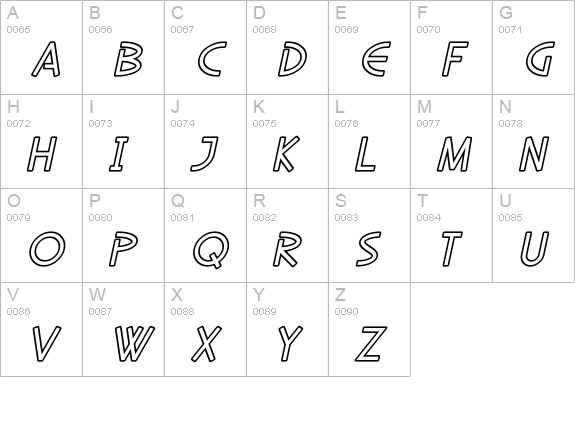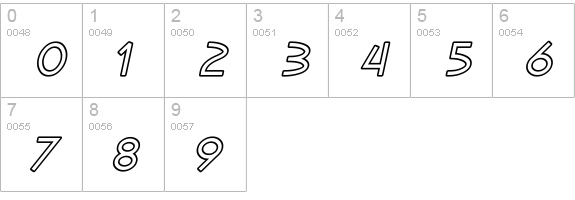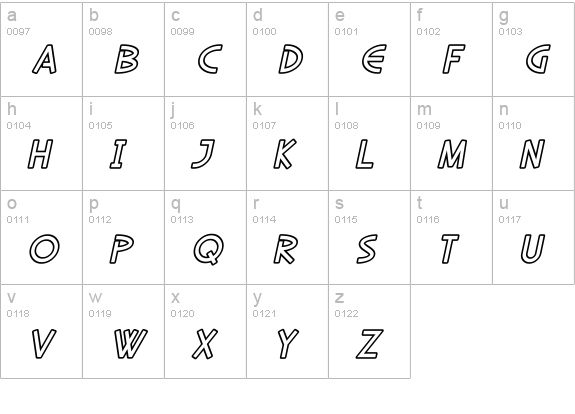
SF Diego Sans Outline Oblique Font Details
SF Diego Sans Outline Oblique is a distinctive, italic variant in the SF typeface family \xE2\x80\x94 well suited to design and typography projects.
SF Diego Sans Outline Oblique is a striking and modern font that effortlessly combines elegance with a contemporary edge. With its sleek and stylish design, this font is perfect for adding a touch of sophistication to any project. The outline oblique style of SF Diego Sans adds a unique twist to the traditional sans-serif font, making it stand out from the crowd. The subtle slant of the letters adds a sense of movement and dynamism, creating a visually captivating effect. One of the best things about SF Diego Sans Outline Oblique is that it is available for free. That's right, this exceptional font can be downloaded at absolutely no cost from FontsMarket.com. Whether you're a professional designer or simply someone looking to add a touch of flair to your personal projects, this font is freely available for all to enjoy. The versatility of SF Diego Sans Outline Oblique makes it suitable for a wide range of applications. From logos and branding materials to websites and print designs, this font will make your work stand out from the crowd. Its clean and legible letterforms ensure that your message is conveyed with clarity and impact. So why wait? Download SF Diego Sans Outline Oblique for free today and unlock a world of endless design possibilities. Whether you're working on a business presentation, a creative project, or simply want to add a touch of style to your personal documents, this font is a must-have in your typography arsenal. Head over to FontsMarket.com and get your hands on this stunning font now.